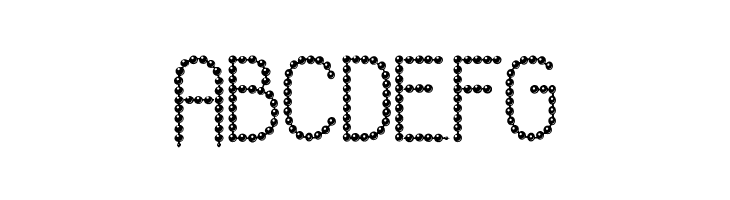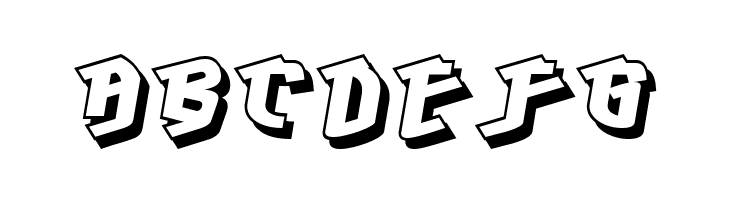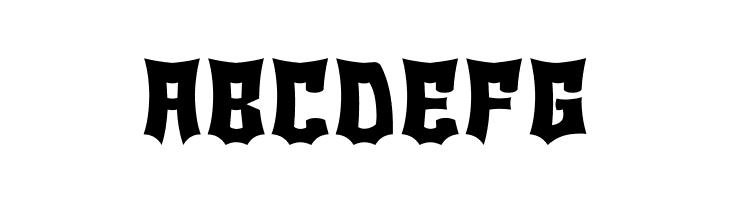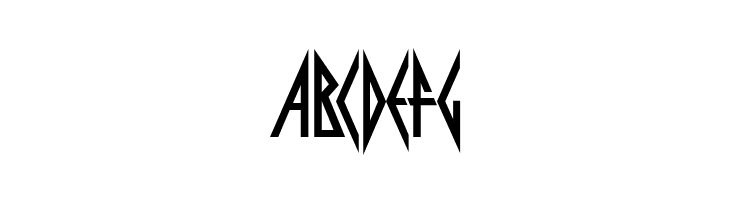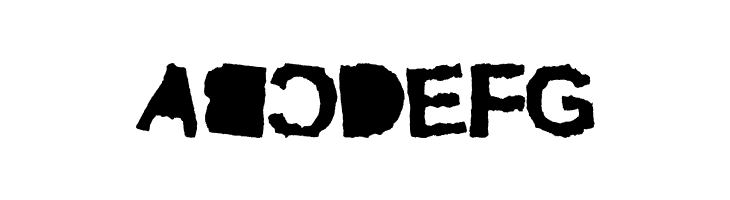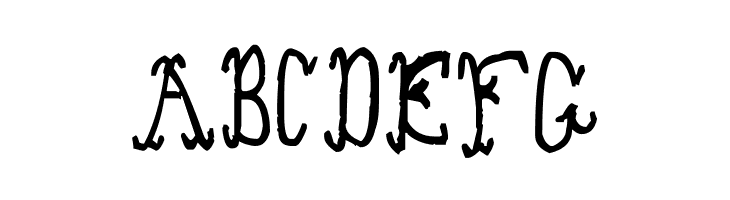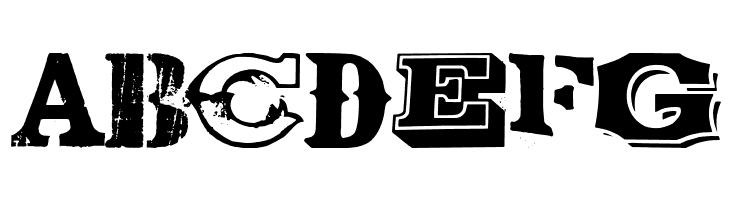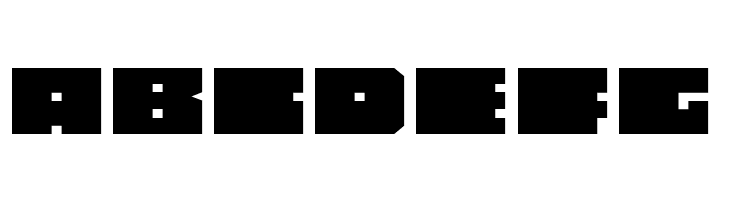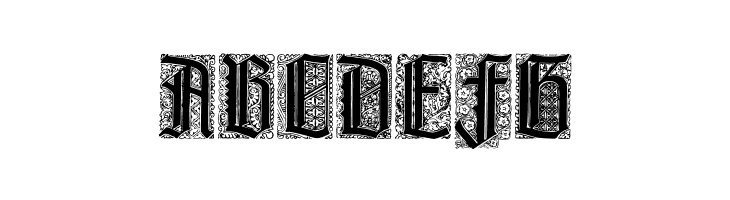
( Fonts by Goma Shin - Shintarou Nakayama www.geocities.jp/gomarice_font/ )
A bold, rounded font with a playful and modern aesthetic.
( Font by kingthingsfonts.co.uk )
A playful, beaded decorative font with a whimsical aesthetic.
A bold, geometric font with strong, angular characters ideal for impactful designs.
( Fonts by Goma Shin - Shintarou Nakayama www.geocities.jp/gomarice_font/ )
A bold, Gothic-inspired font with sharp, angular edges and exaggerated serifs.
( Fonts by Amazingmax - Maxim Avdeev )
A bold, angular font with a futuristic and geometric design.
( Fonts by www.lars-manenschijn.nl )
A playful, bold font with a unique shadow effect and rounded, bubbly characters.
( Fonts by Manuel Viergutz - Typo Graphic Design - www.typographicdesign.de )
A bold, distressed font with a rugged, hand-crafted appearance.
( Fonts by billyargel.blogspot.com - Billy Argel )
A bold, distressed font with a vintage, textured style.
A bold, geometric font with a modern and expansive style.
A bold, gothic-inspired font with sharp, angular edges and dramatic flair.
An ornate and intricate Blackletter font with a medieval and historical appearance.
A bold, decorative font with a shadow effect and outlined characters.
( Fonts by www.seansart.net )
An ornate, decorative font with intricate floral and vine motifs.
( Fonts by www.norfok.com - Norfok® Incredible Font Design - Thomas W. Otto )
A bold, gothic-inspired font with sharp edges and distinct serifs.
( Fonts by Jens R. Ziehn - www.filmhimmel.com )
A bold, horror-themed font with dripping, jagged edges.
( Fonts by Blue Vinyl - Jess Latham - www.bvfonts.com )
A bold, playful font with thick, rounded letters and a bubbly appearance.
A bold, distressed font with a grunge aesthetic and rough, uneven strokes.
( (C)1998-2007 Gray Graphics. http://www.orange.ne.jp/~den7/ )
A playful, music-inspired font with bold, rounded shapes and decorative accents.
( (C)1998-2007 Gray Graphics. http://www.orange.ne.jp/~den7/ )
A playful, bubbly font with bold, rounded shapes and a whimsical design.
( Fonts by Mans Greback - www.mawns.com )
A bold, blackletter style font with sharp, angular lines and high contrast.
( Fonts by billyargel.blogspot.com - Billy Argel )
A bold, decorative font with a vintage, handcrafted appearance.